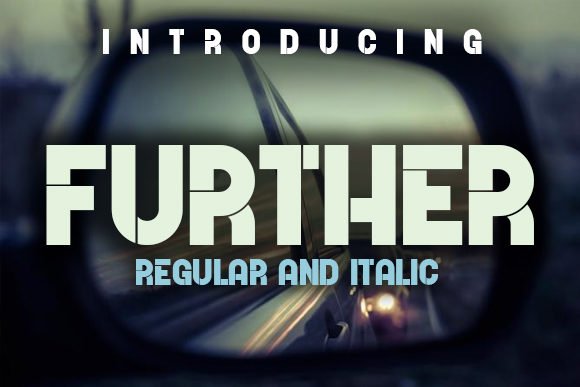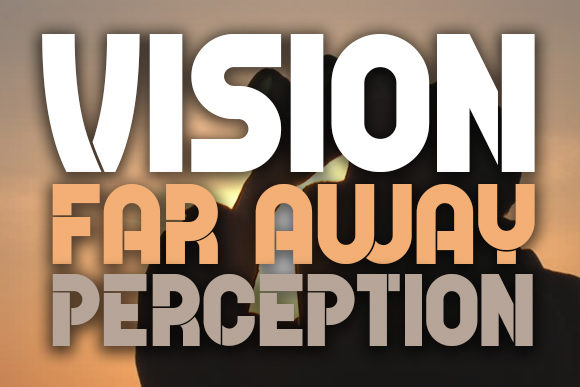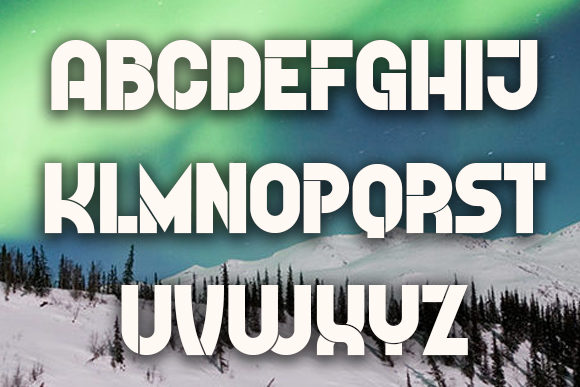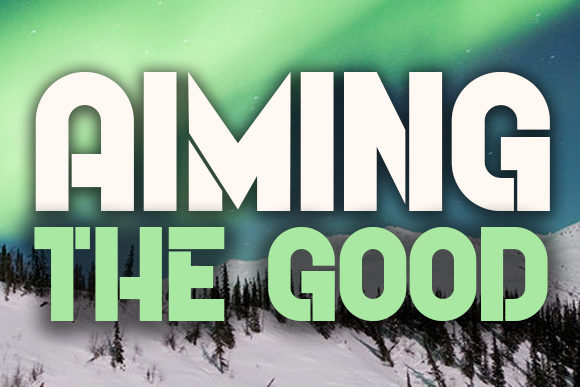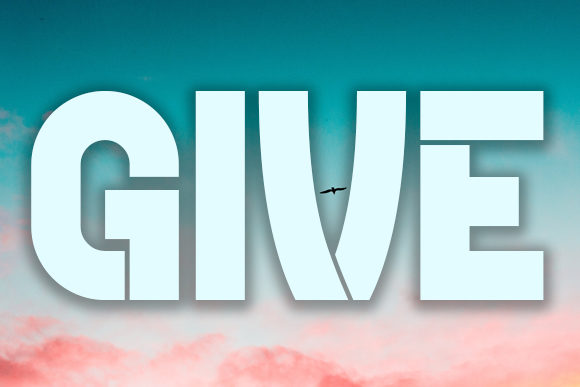
Unleash Your Creativity with the Power of Further Font
Have you ever stared at a blank canvas, itching to bring a bold idea to life? That’s exactly the moment when creativity strikes, and the possibilities seem endless. It’s in these moments that the right tool can make all the difference – and for designers, that tool is Further Font.
This dynamic display font is designed to turn any creative project into a stunning eye-catcher. With its bold and eye-catching style, Further Font is the perfect companion for designers looking to add a touch of sophistication and flair to their work.
Whether you’re working on a branding project, a marketing campaign, or a design for a website, Further Font is a valuable addition to your toolkit. Its versatility and unique style make it an ideal choice for designers who want to stand out from the crowd and push the boundaries of creativity.
Key Features of Further Font
- Font Family: Further Font is a sans-serif font family with a modern and minimalist design.
- Unique Characteristics: Further Font features a distinctive x-height and a subtle, rounded edge to the letters, giving it a friendly and approachable feel.
Further Font Review
As a designer, I’ve had the chance to work with ‘Further Font’ and I have to say, it’s an interesting choice. Here are my thoughts:
- The unique blend of modern and vintage elements makes it perfect for projects that need a touch of elegance and sophistication.
- The font is highly customizable, allowing me to adjust the spacing, weights, and styles to suit my design needs.
- The extensive character set and language support make it suitable for multilingual projects.
- The font can be quite busy, which may make it difficult to read at small font sizes.
- The weight range could be more comprehensive, as some weights feel a bit too similar.
- The font may not be suitable for projects that require a bold, attention-grabbing font.
Overall, I think ‘Further Font’ is a solid choice for projects that need a refined, high-end feel. While it has its limitations, it’s definitely worth considering for the right project. With some careful styling and spacing, it can really shine.
For the best results, use Further Font in headings and titles to create a clear visual hierarchy. You can also use it for body text to create a cohesive look and feel. Some common use cases include:
- Marketing materials and advertisements
- Website design and development
- Print materials and brochures
Alternatives to Further Font for Designers
Montserrat is a sans-serif font designed for digital use. It is clean, modern, and highly legible. Montserrat is suitable for use in digital products, such as apps, websites, and mobile applications. When to use: For modern, tech-related projects, especially when you need a clean and minimalistic look.
Comparison to Further Font: Montserrat is more geometric and has a larger x-height, making it more suitable for digital use. While Further Font is a more traditional sans-serif, Montserrat is a more modern and versatile choice.
Merrriweather is a classic serif font that works well for body text. It has a traditional feel and is highly legible, making it suitable for use in print and digital media. When to use: For projects that require a traditional, classic look, such as books, magazines, and websites with a vintage feel.
Comparison to Further Font: Merriweather is a serif font, whereas Further Font is a sans-serif font. Merriweather is more suitable for body text and is often used in combination with a sans-serif font for headings.
Inter is a highly legible sans-serif font designed for digital use. It is clean, modern, and has a high x-height, making it suitable for use in digital products, such as websites, apps, and mobile applications. When to use: For modern, digital projects, especially when you need a clean and minimalist look.